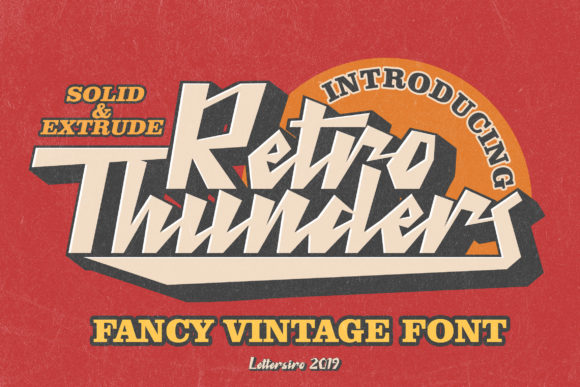
Step into a world of retro charm with Retro Thunder Font, the ultimate display font that evokes an irresistible vintage vibe. Transport yourself back in time as you explore this meticulously crafted typeface, oozing with character and personality that will leave you breathless. Its solid and extrude styles are like perfectly aged vinyl records, each groove telling a story of nostalgia and timeless elegance.
Unleash your creativity and watch your designs come alive with Retro Thunder Font's captivating presence. Create logos that radiate a sense of history and tradition, posters that scream with bold personality, and labels that exude a unique charm that will make your products stand out from the crowd. Dive into the world of fashion and design clothing that speaks to the soul, capturing the essence of retro chic. Let your imagination soar as you craft music covers that transport listeners to a bygone era, where melodies dance on the wings of time.
With Retro Thunder Font, your designs will transcend the ordinary, becoming masterpieces that resonate with audiences of all ages. Its versatility knows no bounds, seamlessly adapting to a myriad of projects, from social media graphics that pop with retro flair to presentations that command attention with a touch of nostalgia. Embrace the power of Retro Thunder Font and watch as your creative vision takes center stage, captivating hearts and igniting imaginations.
So, why settle for ordinary when you can immerse yourself in the extraordinary? Choose Retro Thunder Font, the font that will elevate your designs to new heights of retro brilliance, leaving an indelible mark on the world of design. Join the ranks of those who appreciate the beauty of the past, and let Retro Thunder Font guide you on an unforgettable creative journey.